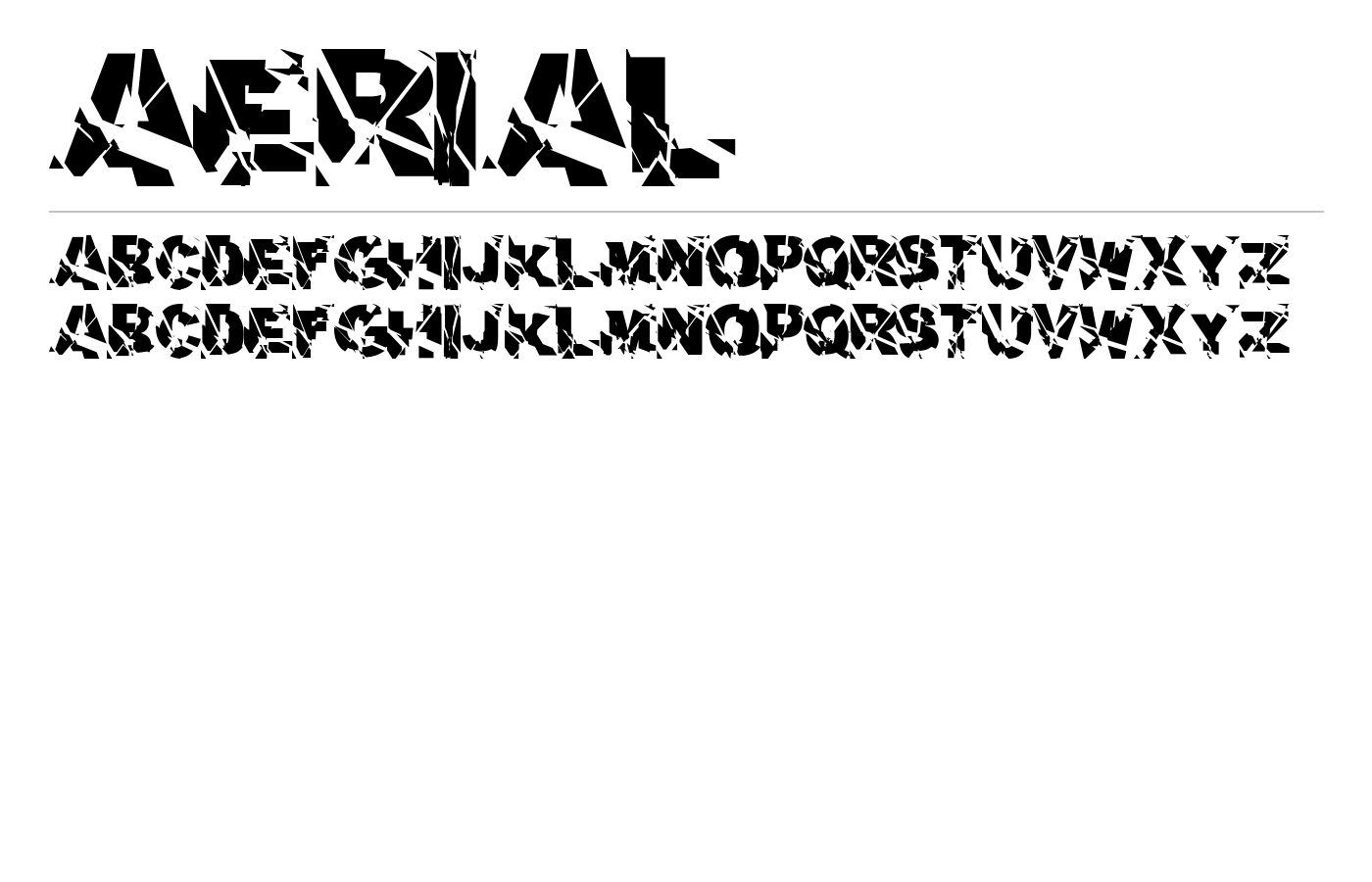
This aerial font features a bold, distressed sans serif style with a strong, wide presence and high contrast created by sharp, fragmented edges. Its uppercase-only design gives it a powerful, edgy, and modern feel, making it ideal for striking headlines, posters, or branding that seeks an urban or rebellious vibe. The unique shattered effect adds a sense of movement and intensity, perfect for creative projects wanting to convey energy and raw impact.
aerial Font
About aerial Font